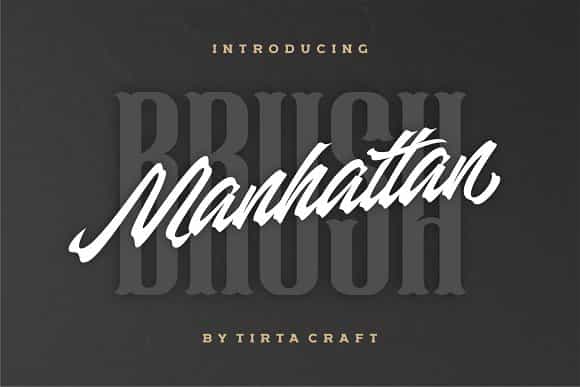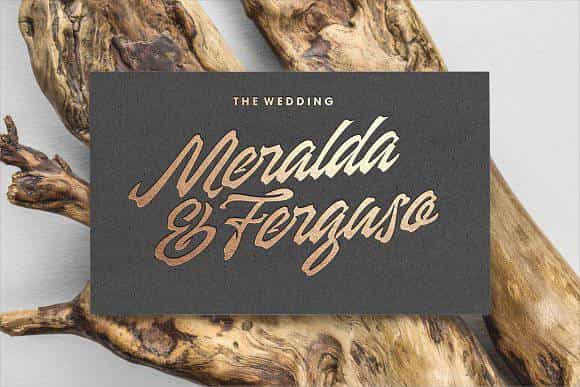
Introducing Manhattan Font! Vasgaz Creative designs and shares Manhattan. The Manhattan Brush Ink Script Font is the commercially first typeface released from Tirta Craft. With a classic, stylish, retro, luxurious and simple feel. Such a classic style is ideal to use in a whole lot of formal forms like invitations, labels, menus, Logos, fashion, make up, stationery, letterpress, romantic novels, magazines, books, greeting / wedding cards, packaging, labels.